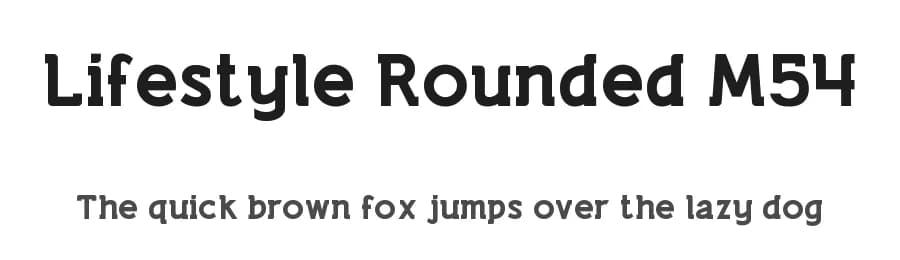
About Lifestyle Rounded M54 Font
Just a semi-slab serif font I felt inspired to create after flicking through a magazine. This is the round edged version of 'Lifestyle M54'.
Lifestyle Rounded M54 Font